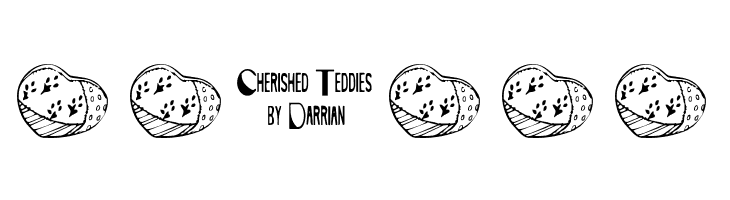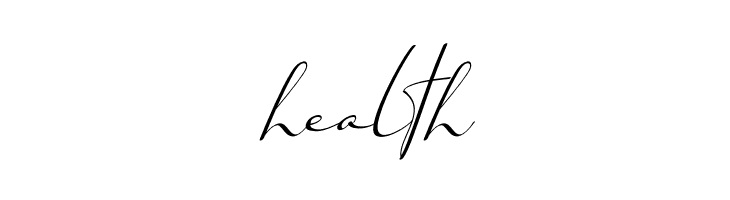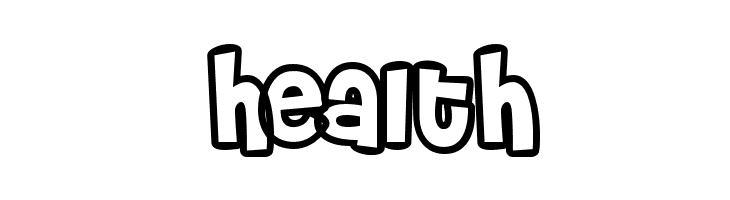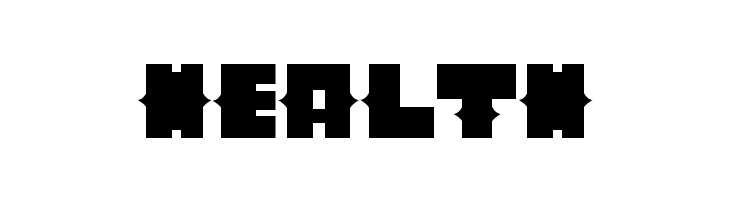
Cheri Font
A playful, bold font with quirky, rounded characters and whimsical special symbols.
Cheri Liney Font
A playful, bold font with rounded characters and heart motifs.
Cherishing Moments Font
An elegant, flowing script font with smooth, cursive strokes and artistic flair.
Cherish Moment Font
A playful, bold font with rounded edges and a hand-drawn style.
cherif Font
A bold, high-contrast font with geometric and modern elements.
CherilyBlussomDEMO Font
A playful, hand-drawn font with elongated, quirky letterforms.
BLUE CHERIES Font
A bold, playful handwritten font with rounded strokes and a whimsical style.
Cherish & Love Font
A bold, vintage serif font with a distressed, handcrafted look.
Cherished Teddies Font
Whimsical teddy bear illustration font for decorative use.
Cherish Today Font
A playful, rounded font with smooth curves and a friendly appearance.
Pea Terri Cherie Font
A playful, casual handwritten font with free-flowing strokes and uneven spacing.
CherioneNormal Font
Cherile Regular Font
A playful, rounded font with smooth curves and a friendly appearance.
Cherish Is the Word Demo Font
An elegant and sophisticated script font with intricate, flowing characters.
Cherilyn Font
A graceful script font with elegant swashes and a classic calligraphic style.
Pourquoi Font
A playful, bold font with rounded, irregular characters for a whimsical feel.
Cheria Font
A playful, rounded font with a hand-drawn aesthetic and consistent stroke width.
Cherish Regular Font
A charming and elegant script font with flowing, cursive letterforms.
Cherio Font